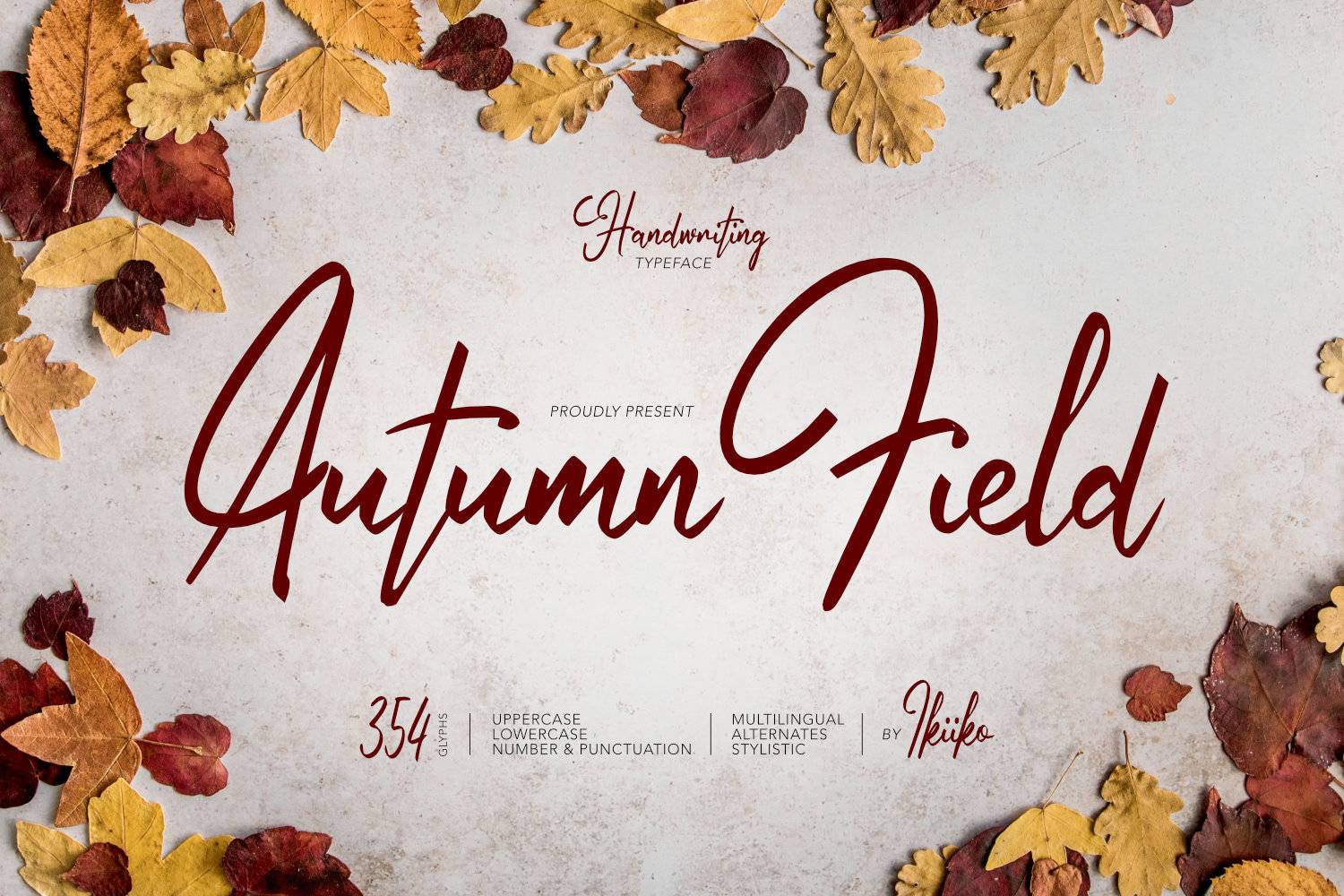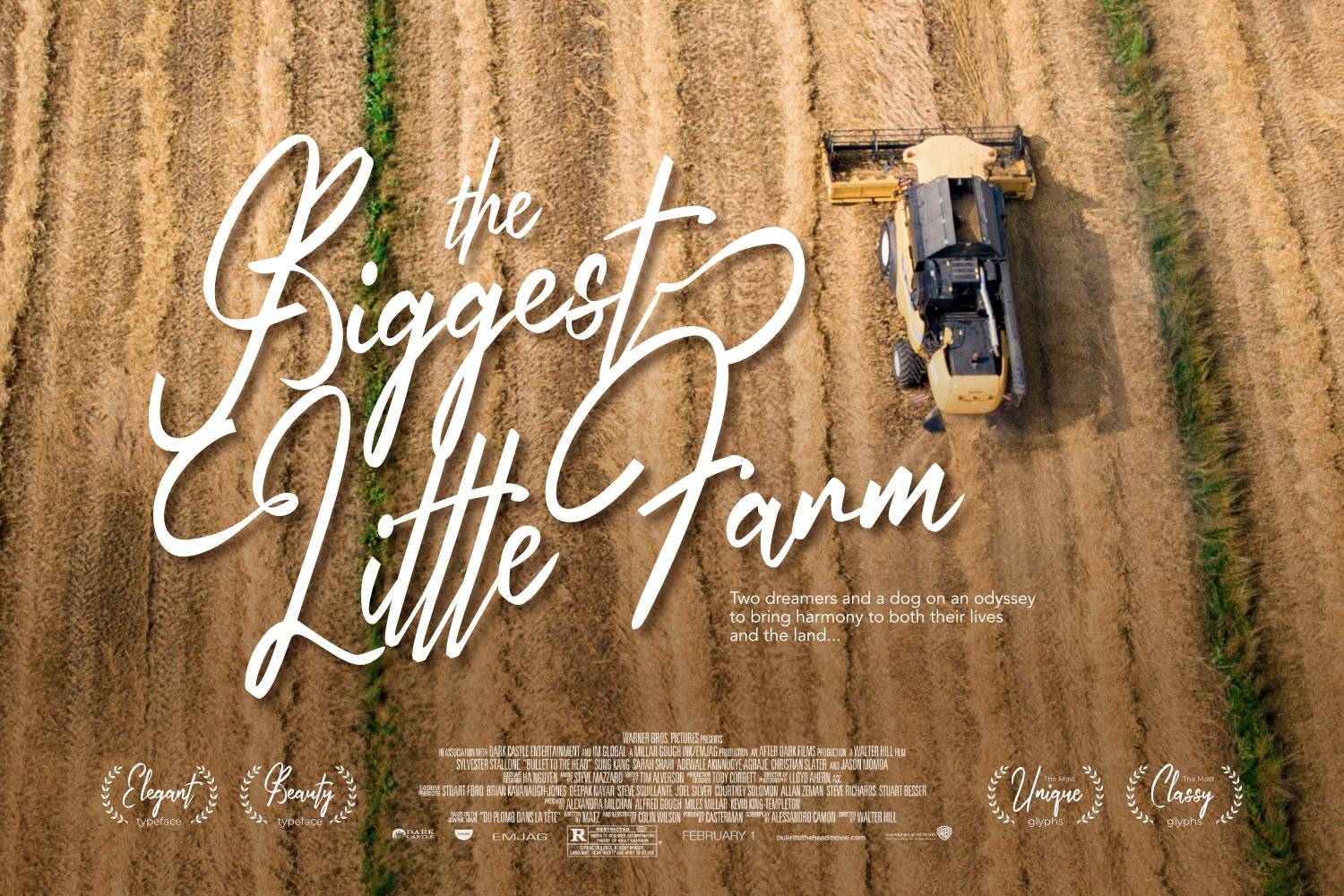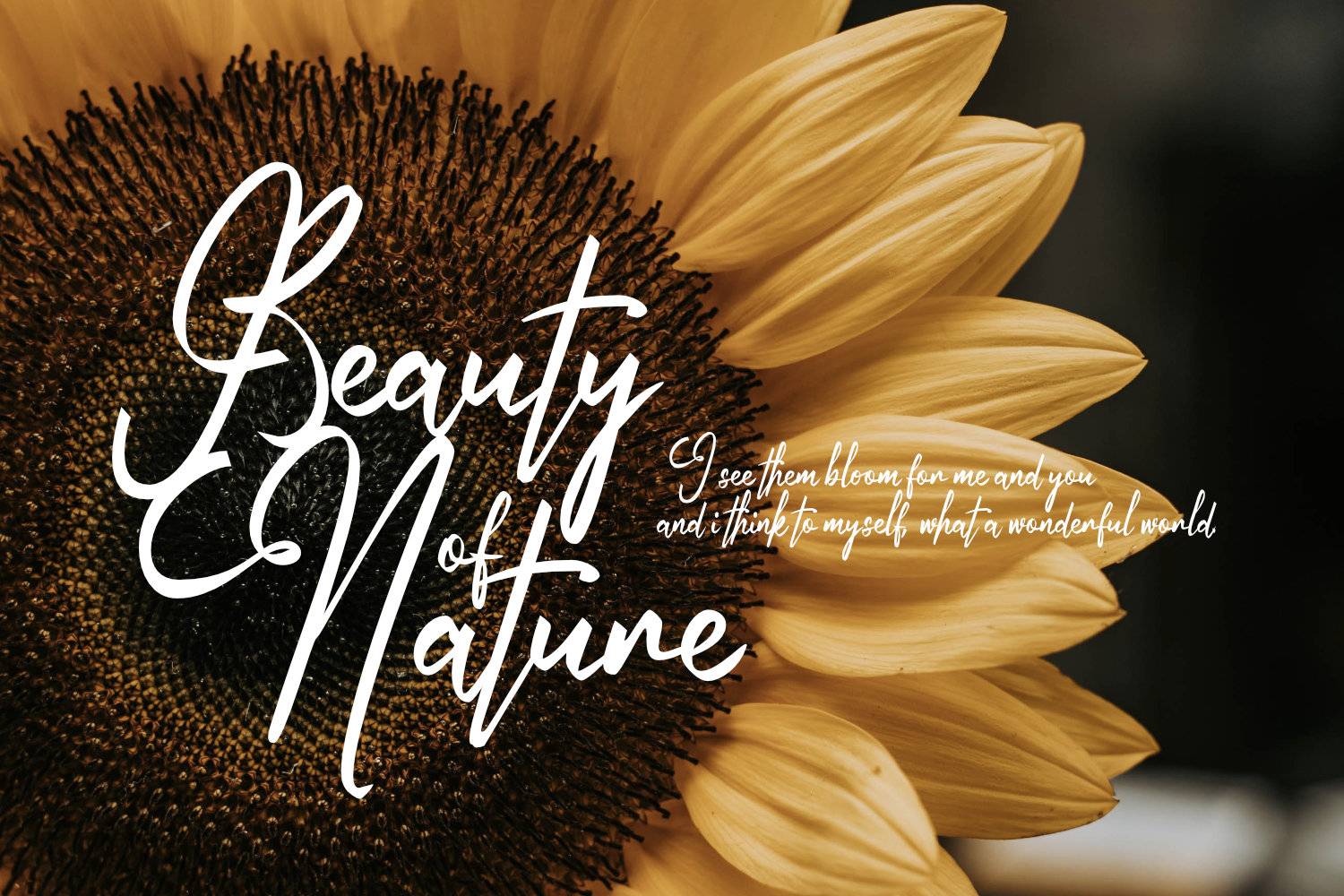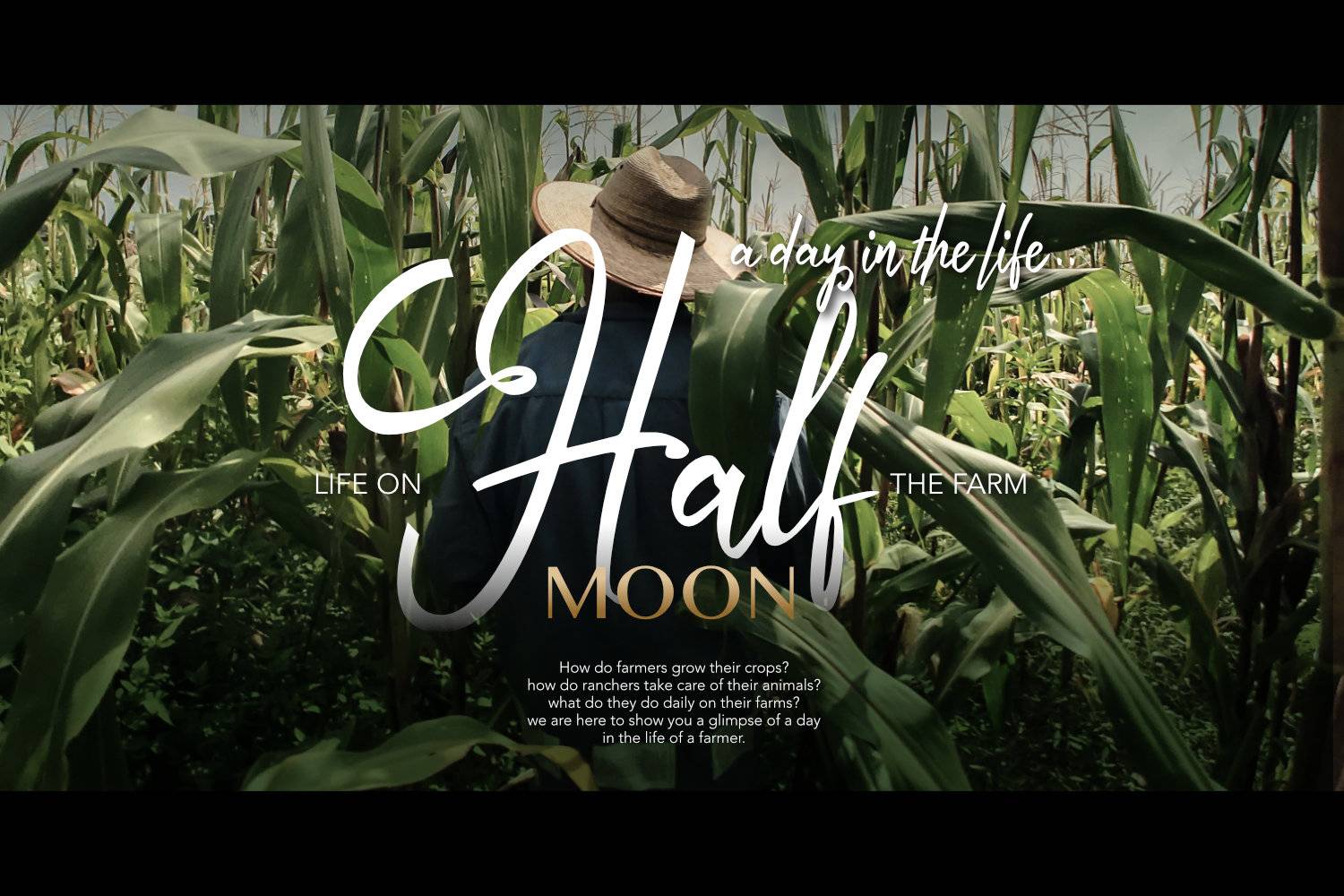
Autumn Field is a graceful script font characterized by its elegant, flowing letterforms and light, airy strokes, creating a natural handwritten feel. With its tall x-height and delicate contrasts, it conveys a sophisticated yet approachable personality, making it ideal for branding, invitations, and fashion-focused designs where a touch of personal charm and elegance is desired. This font works beautifully in headlines and logos, lending a stylish and refined presence without feeling overly formal.
Autumn Field Font
About Autumn Field Font
| Designer | Wahyu Eka Prasetya, Andhika Pradana |